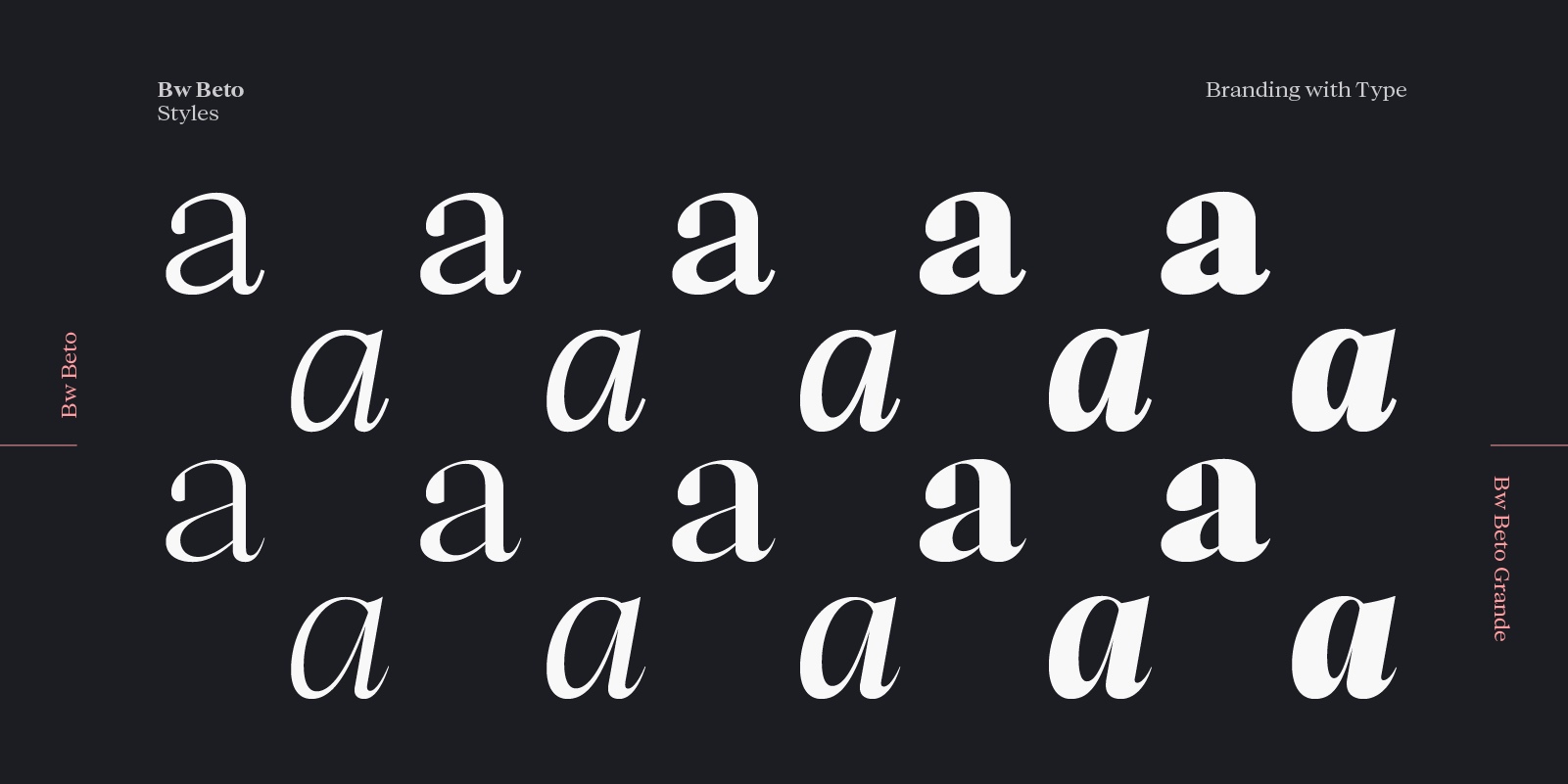
Bw Beto Font
Bw Beto Font is perfectly suited for modern editorial layouts, contemporary magazine designs, minimalist branding projects, clean advertising campaigns, sophisticated web interfaces, professional business communications, streamlined signage systems, elegant presentation materials, and refined typographic applications.
What makes Bw Beto Font so exciting is its masterful balance of contemporary sophistication and timeless functionality that creates effortless readability while maintaining distinctive character through every precisely crafted letterform. This exceptional typeface embodies the principles of modern typography with its clean lines and harmonious proportions that demonstrate exceptional attention to detail without sacrificing clarity or accessibility. The font's refined character shapes and balanced design create an atmosphere of professional competence and contemporary elegance that resonates with design-conscious audiences who appreciate quality typography and sophisticated visual communication. Bw Beto Font stands out through its ability to convey modernity, reliability, and typographic excellence, making it perfect for projects that need to establish contemporary credibility while providing exceptional reading experiences across all media platforms and design applications.
The Bw Beto Font family includes Light, Regular, Medium, Bold, and Black weights, each available in both roman and italic styles for comprehensive typographic flexibility. The family also features extended character sets and advanced OpenType features that enhance the font's professional appeal and provide complete solutions for sophisticated design projects requiring consistent typographic quality.
When you choose Bw Beto Font Free Download, you're selecting a typeface that brings authentic contemporary sophistication and typographic excellence to your creative projects. This font excels in creating designs that need to convey professionalism, modernity, and design quality. Its refined appearance makes it particularly effective for design studios, publishing companies, and contemporary brands that want to establish typographic credibility while maintaining broad accessibility and professional appeal.
The technical mastery of Bw Beto Font includes comprehensive character sets supporting multiple languages, advanced OpenType features, and precision-engineered spacing optimized for both screen and print applications. The font maintains exceptional legibility across all sizes while providing the versatility needed for complex typographic systems that require seamless integration across diverse media platforms and contemporary design contexts.
Whether you're developing editorial publications, creating contemporary brand identities, designing professional communications, or building comprehensive typographic systems that demand modern sophistication and functional reliability, Bw Beto Font delivers the perfect combination of contemporary style and typographic excellence that ensures your projects remain visually compelling and professionally credible for today's design-conscious audiences.